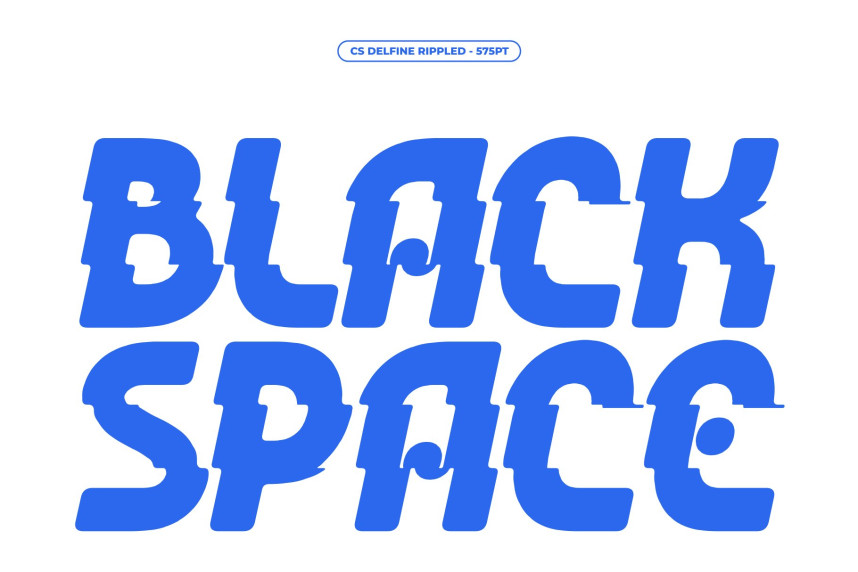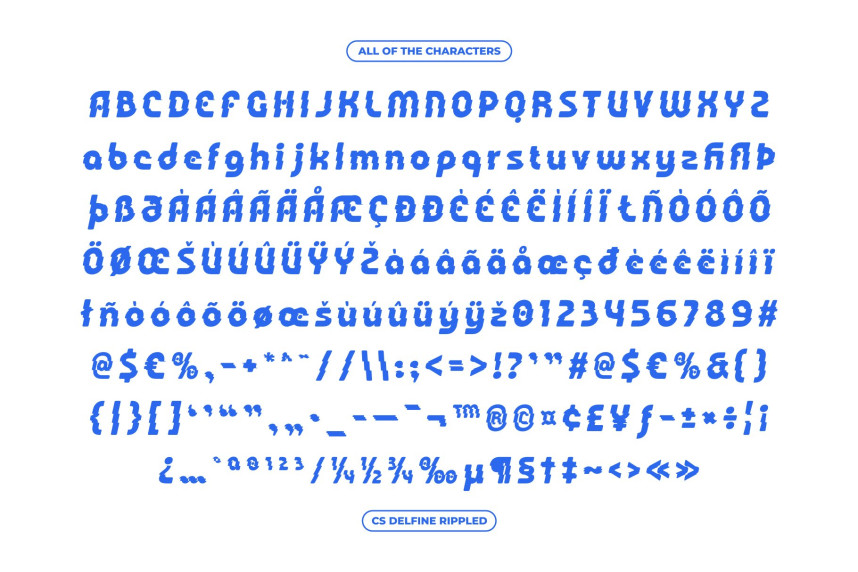
CS Delfine Rippled Font
CS Delfine Rippled Font – Bold Font: Energetic Flow with Liquid Rhythm
Striking Modern Sans-Serif Display Font
This is a modern sans-serif display font built to deliver maximum visual impact through bold, confident letterforms. Its strong geometric foundation creates an immediate sense of power and stability, making every word impossible to ignore. The clean modern construction is enhanced with expressive shaping, allowing the font to maintain clarity while still feeling dynamic and visually aggressive.